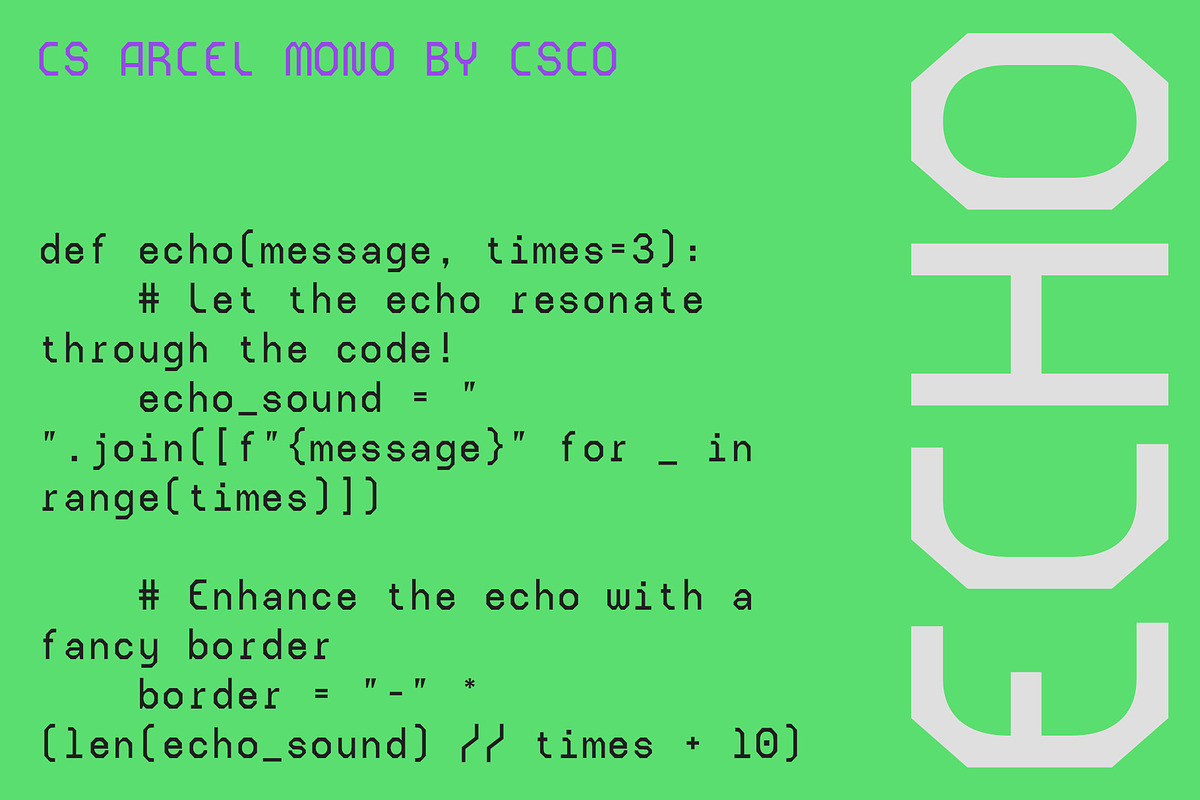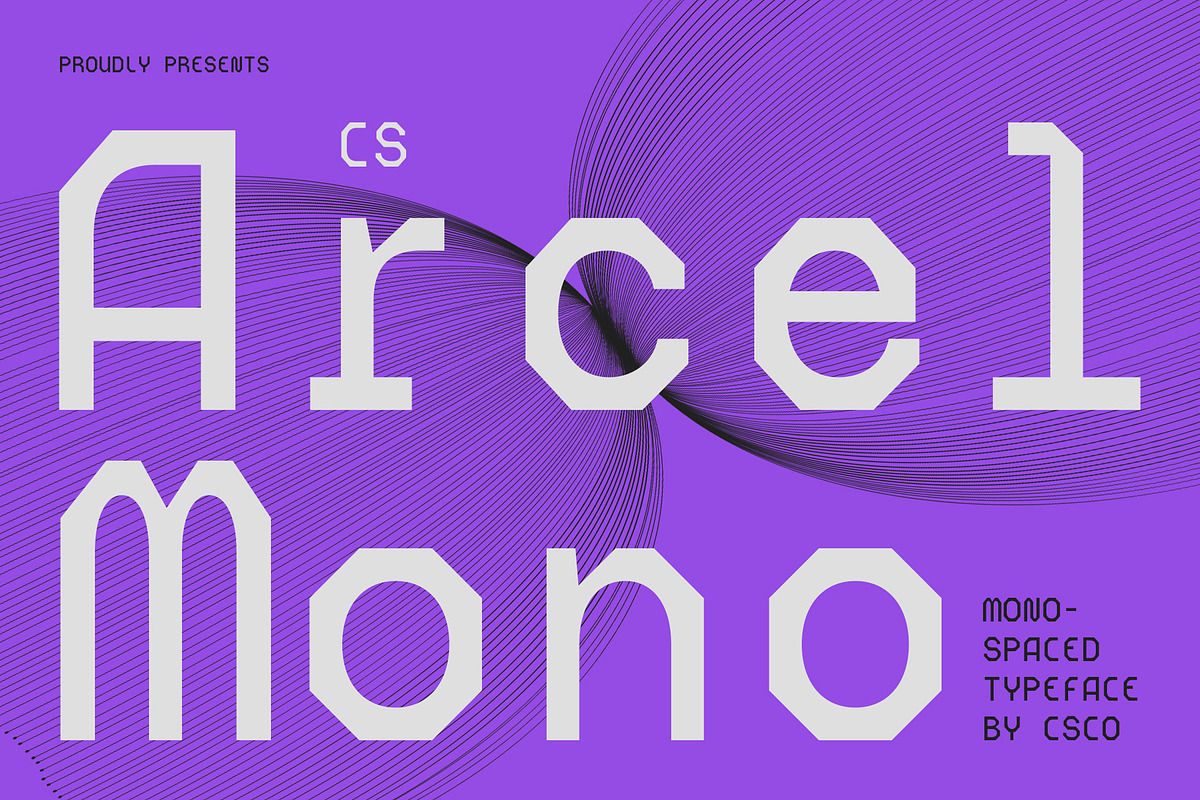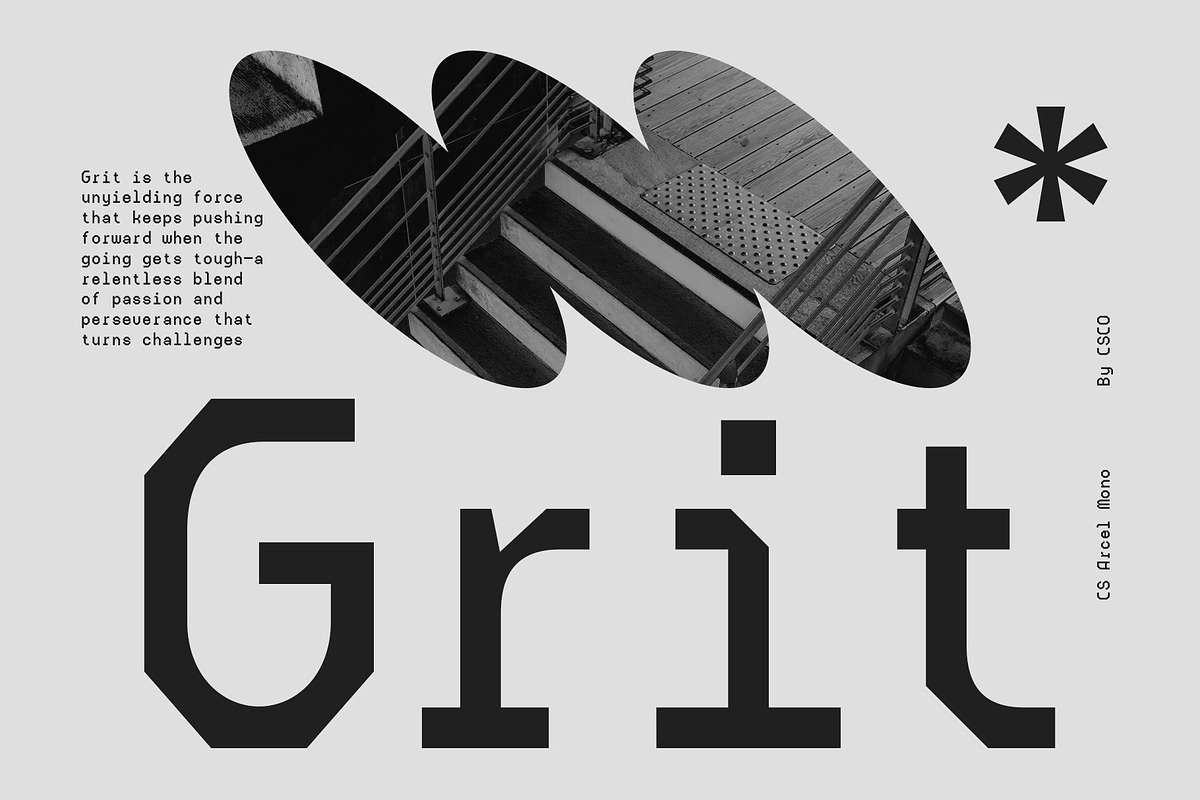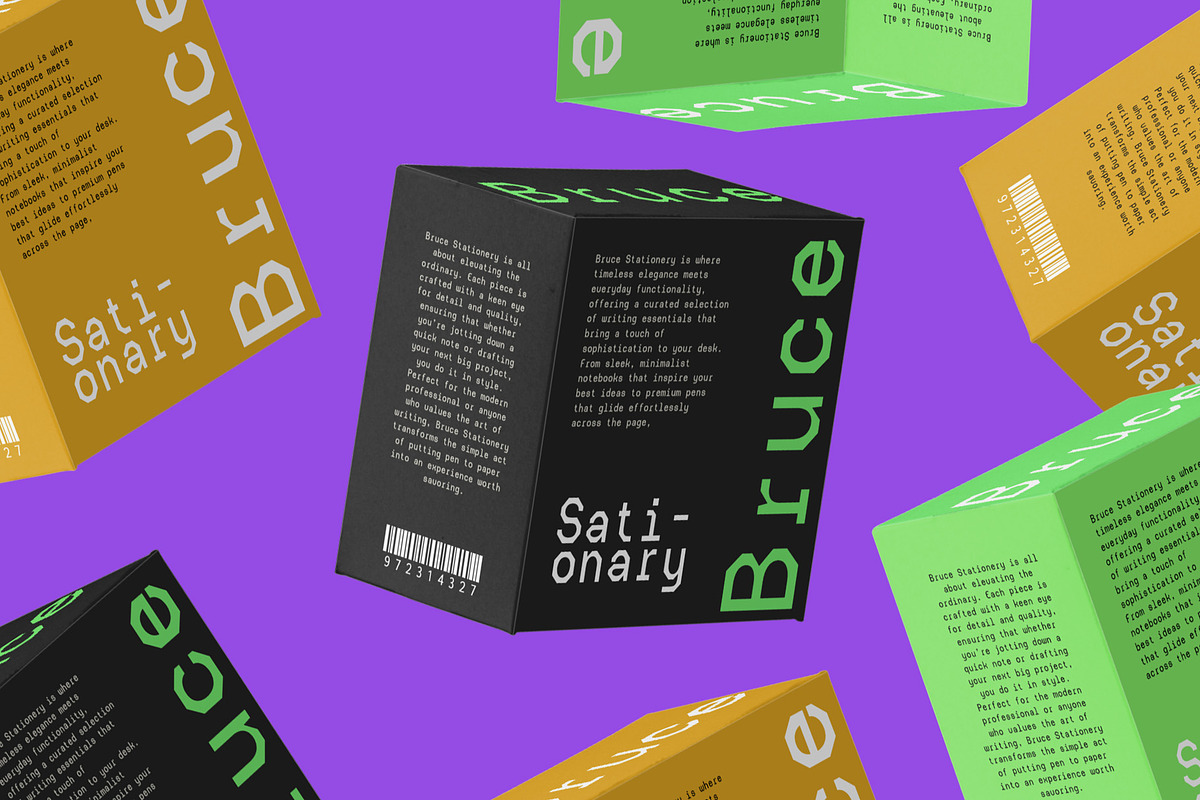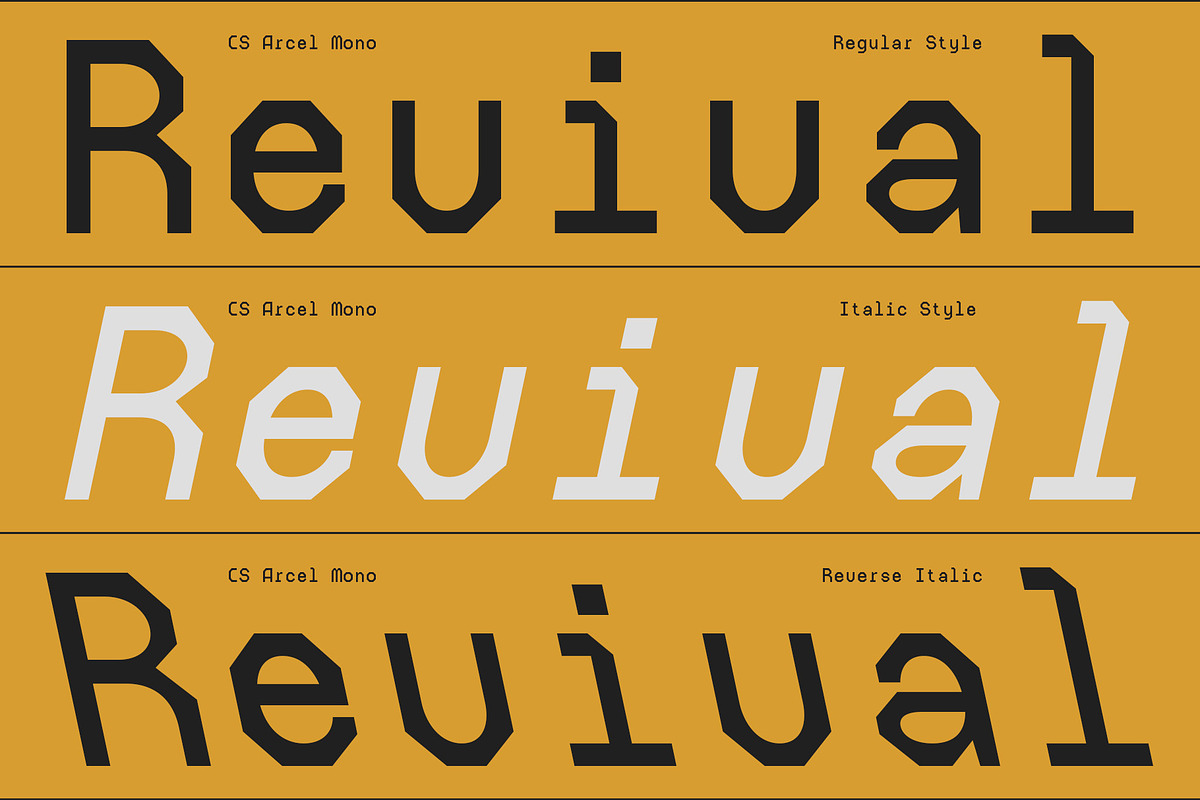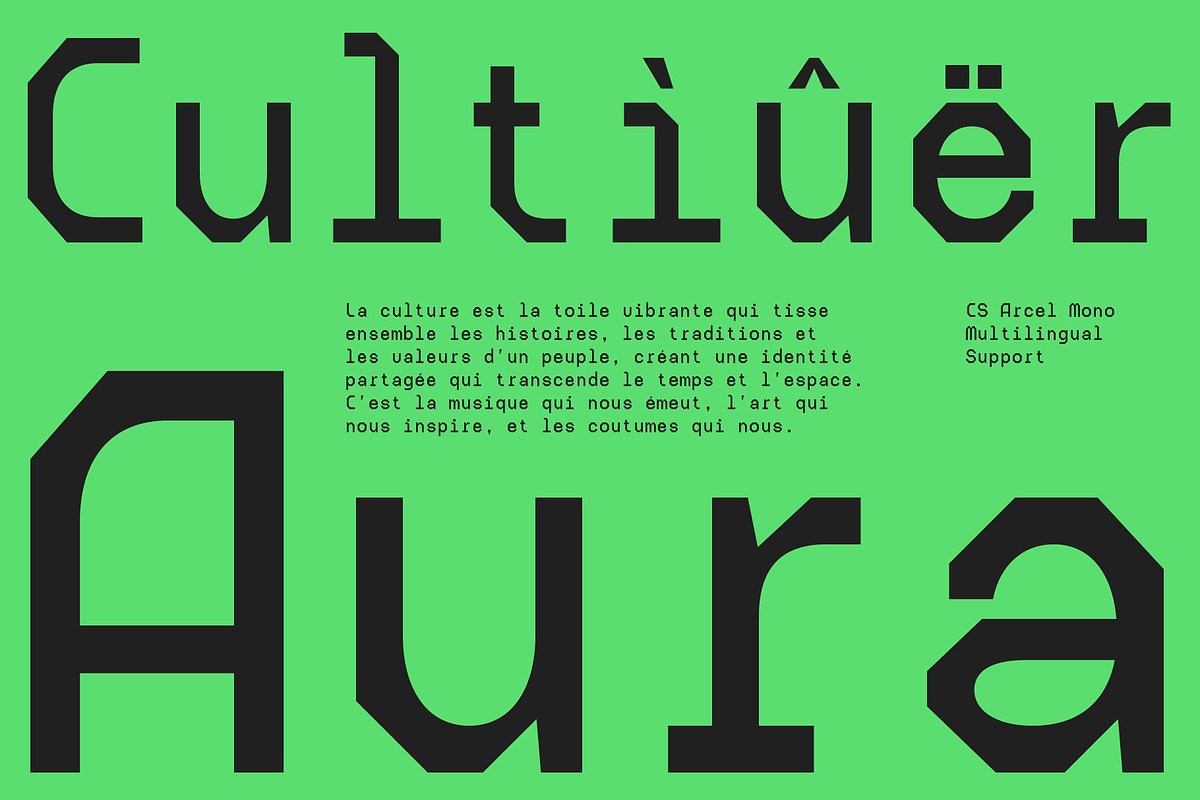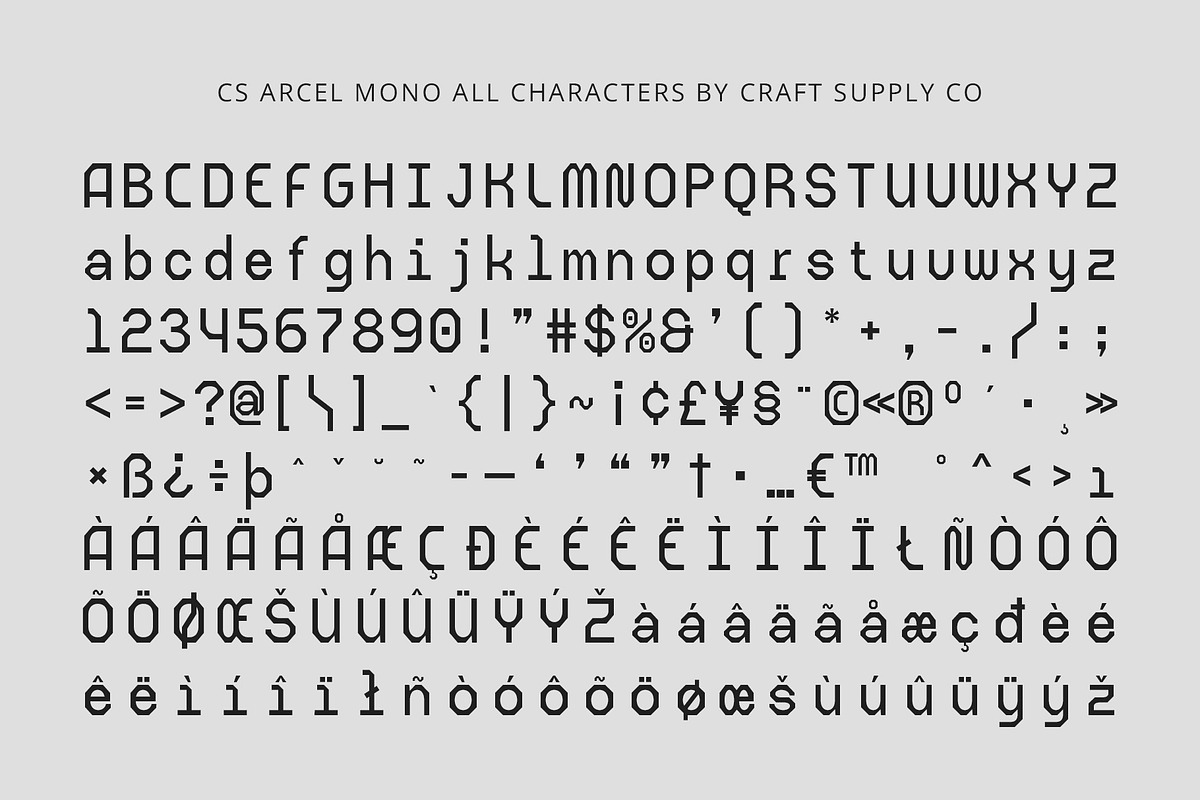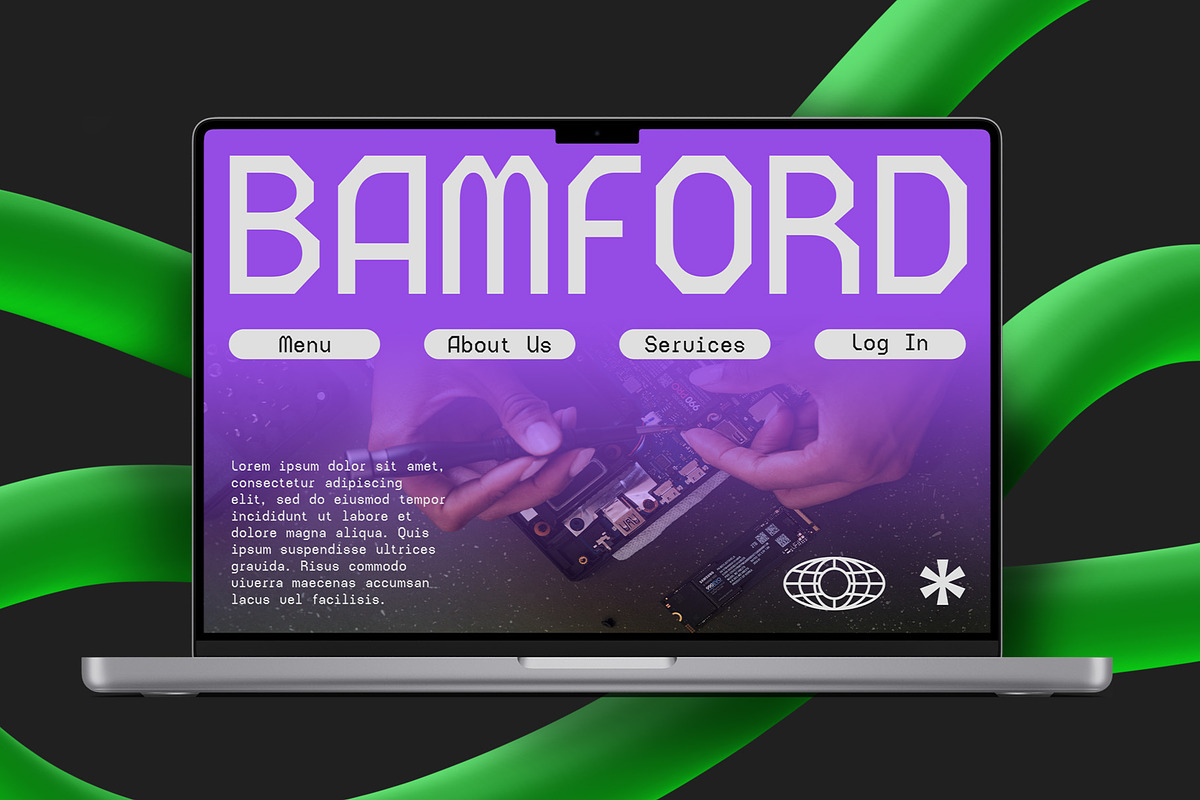
CS Arcel Mono – Monospaced Font
CS Arcel Mono: Monospaced Sans-Serif Font
Monospaced Sans-Serif for Technical Precision This monospaced sans-serif font where each character occupies the same horizontal space, ensuring a perfectly uniform and aligned appearance. This design creates a consistent, organized layout, making it ideal for applications that demand clarity and precision, such as technical documents, coding, and tabular data.
Perfect for Coding and Technical Applications With its even character width, this monospaced font is perfectly suited for programming environments and text editors where accurate alignment is essential. The clean and readable letterforms enhance the user experience, improving focus and comprehension in technical settings.
Clean, Organized Aesthetic Beyond its technical use, CS Arcel Mono’s clean and minimalist design makes it suitable for modern design contexts. Its straightforward, unfussy letterforms can also be used in creative projects that require a streamlined, minimalist look, such as branding, interfaces, or web design. Whether for technical precision or modern aesthetics, this monospaced sans serif font delivers a blend of functionality and style.
Versatile in Modern and Technical Design This monospaced sans serif font is not only ideal for technical projects but also fits seamlessly into modern minimalist design contexts. Its structured, geometric form brings order and elegance to layouts, making it suitable for branding, user interfaces, and even contemporary design materials where a professional yet modern appearance is required.
- CS Arcel Mono Regular
- CS Arcel Mono Italic
- CS Arcel Mono Reverse Italic